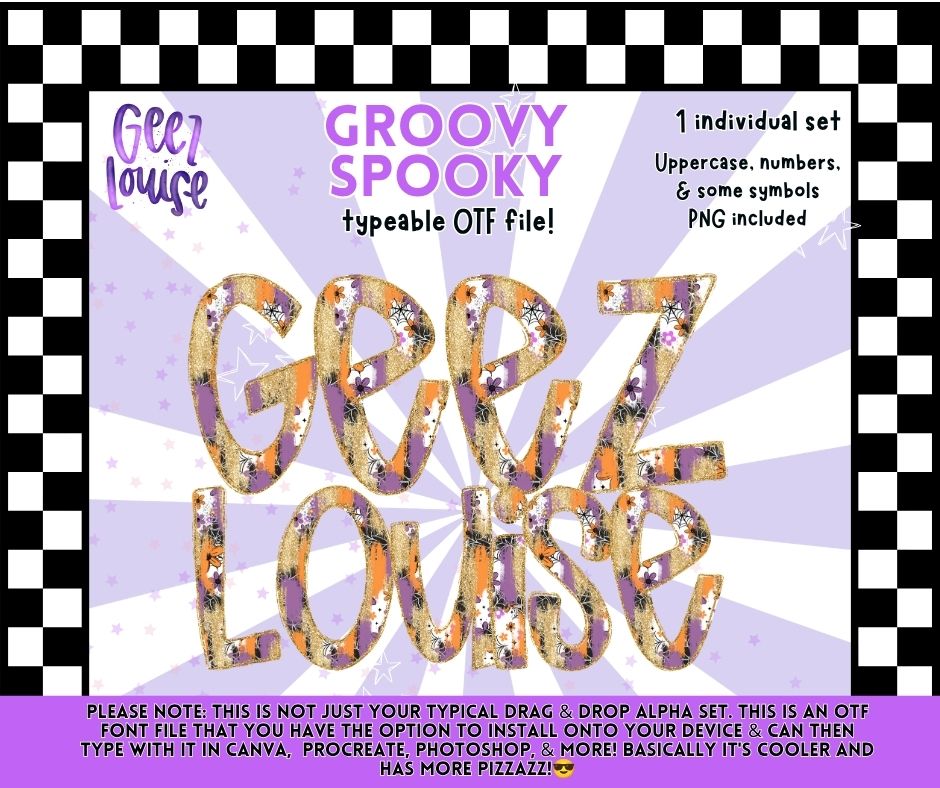
Bring retro Halloween vibes to your creations with the Groovy Spooky OTF Font! This festive alphabet features vintage-inspired spooky patterns with glitter accents and includes a matching PNG alpha set.
- Uppercase Letters
- Numbers
- Select Symbols